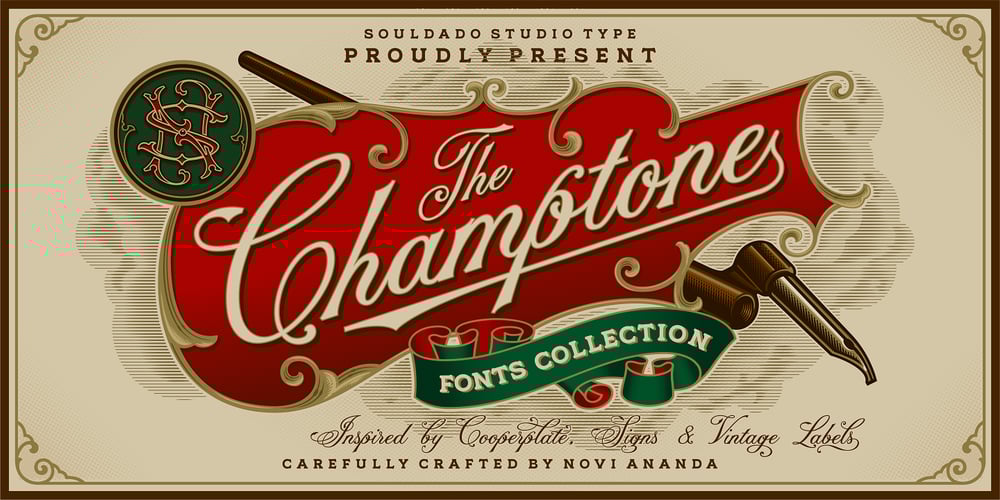
NS Champtone Font Family was designed by Novi Ananda and published by Novi Souldado. NS Champtone contains 3 styles and family package options. The NS Champtone Font Collection is inspired by Copperplate Script, Sign and vintage style labels. Comes with two font styles and extra swashes, ornament borders, panels, ligatures and stylistic alternates. Makes it ideal and perfect for creating a design piece such as letterheads, posters, signage, charters, labels, packaging, logotypes, etc.